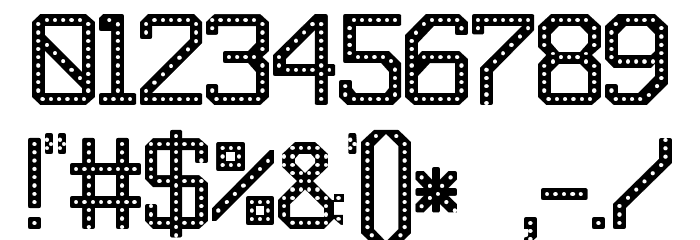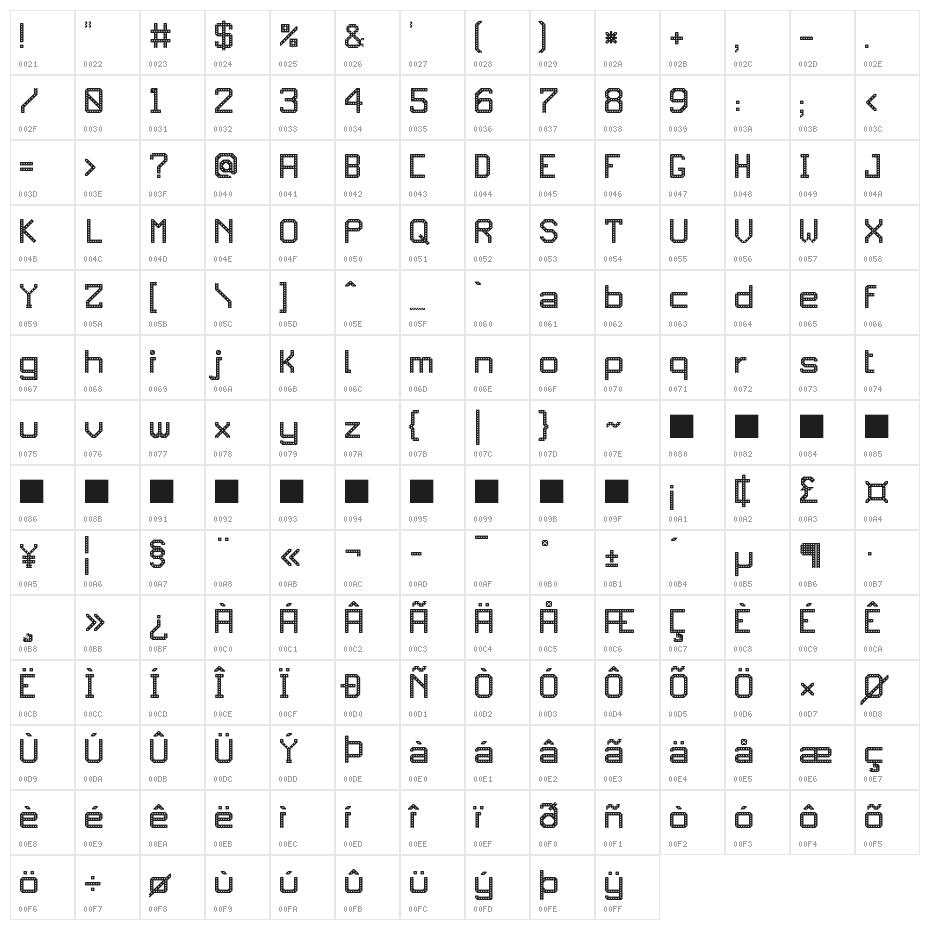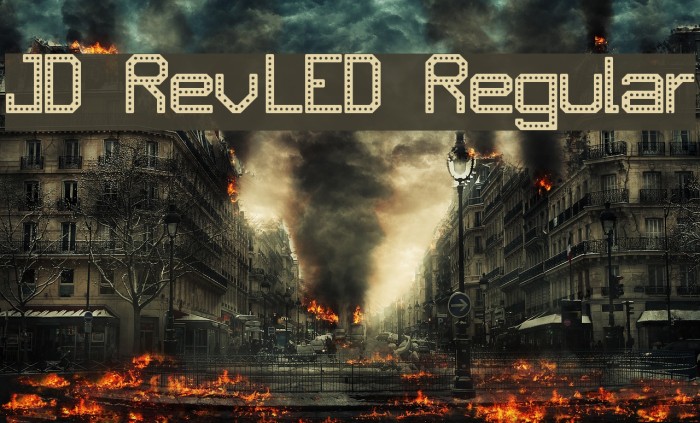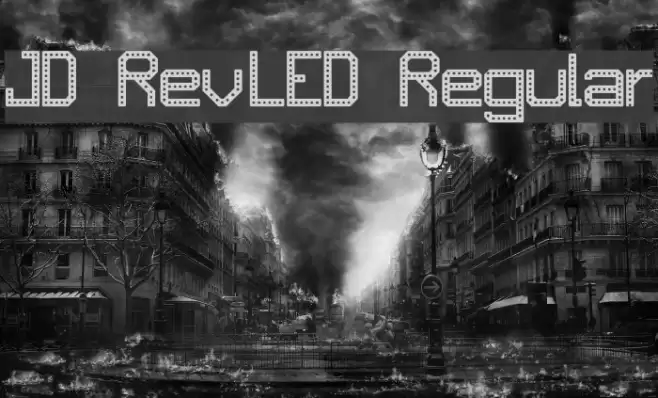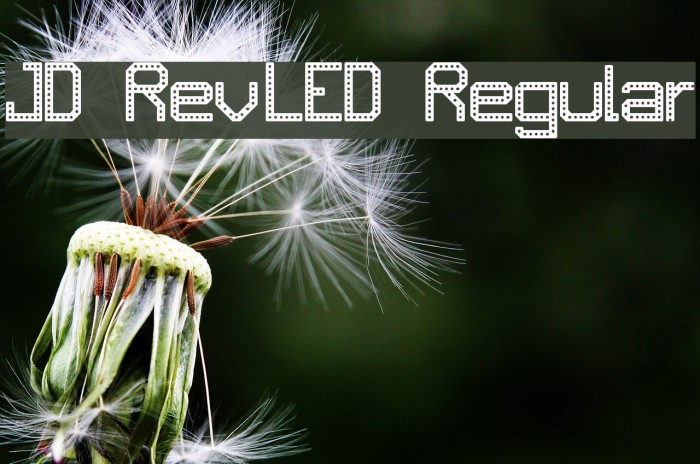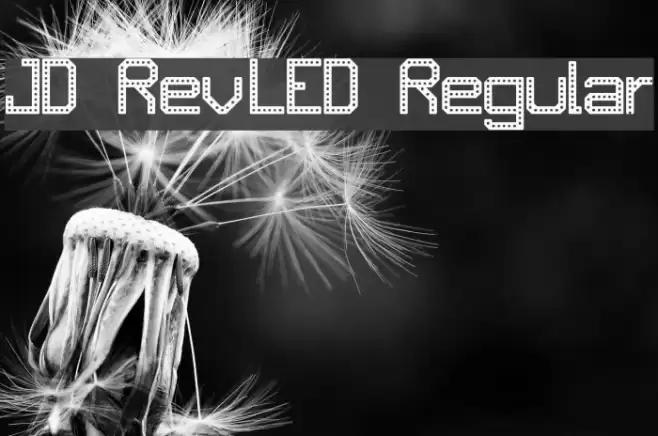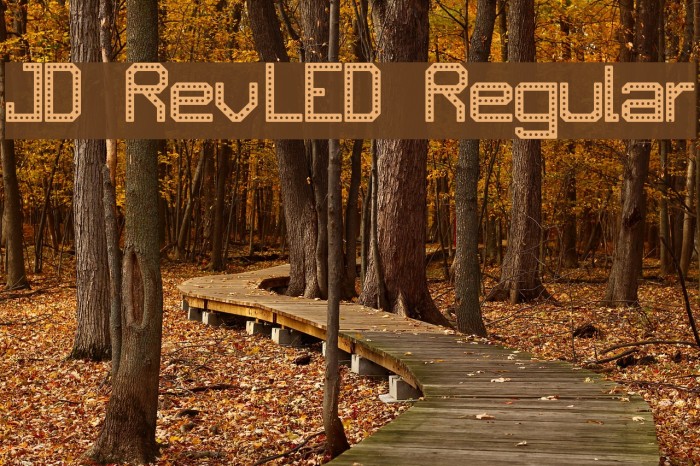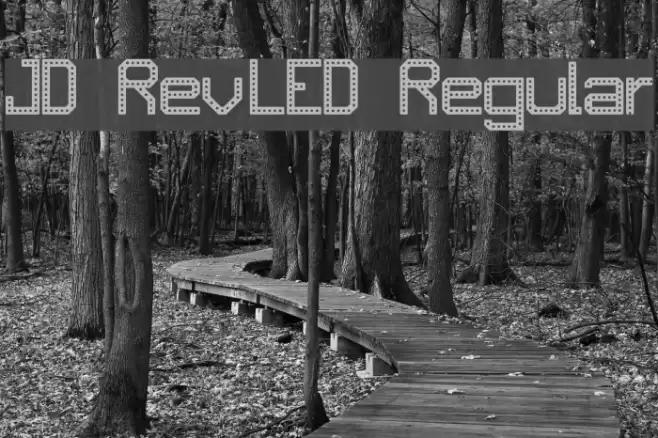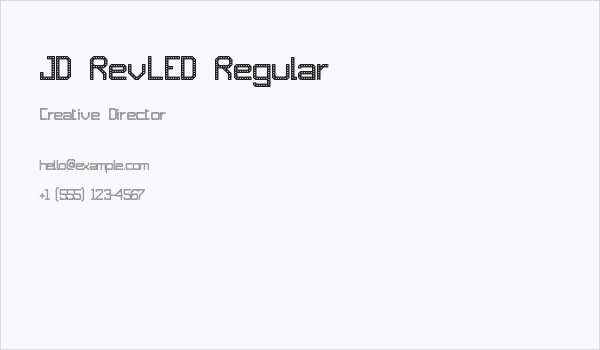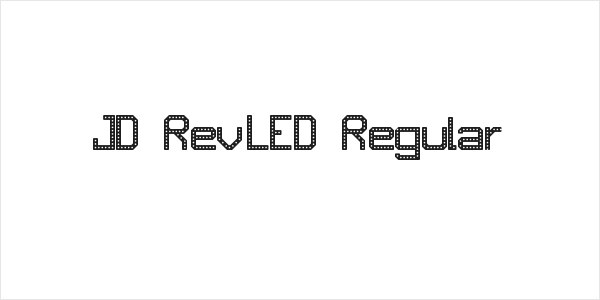
JD RevLED Regular Font
JD RevLED Regular Description
This font features a unique, digital-inspired design with a dotted outline that creates a futuristic and tech-savvy appearance. The characters are constructed with a grid-like pattern, giving them a structured and geometric look. The uppercase and lowercase letters maintain a consistent style, with sharp angles and clean lines. The numerals and special characters follow the same design principles, ensuring uniformity across the font. This style is reminiscent of LED displays or digital signage, making it stand out with its modern and innovative aesthetic.
| Proposed Projects | Ideal for digital displays, tech branding, futuristic posters, and electronic-themed graphics. |